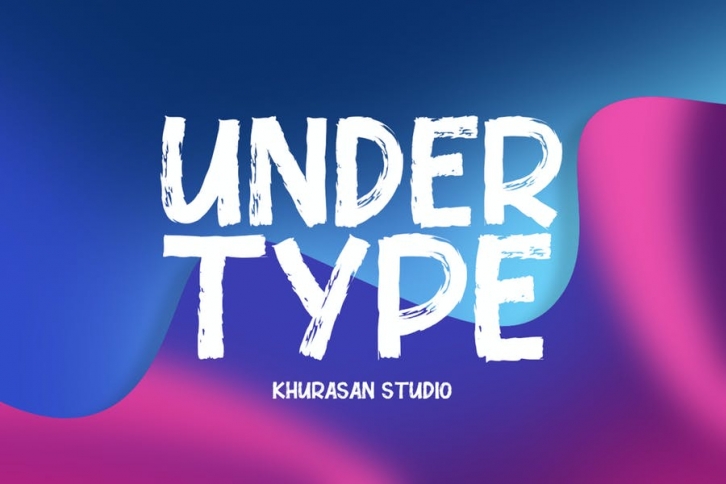
The Under Type font is a sans serif type of bold brush, elegant and vintage feel character set. To create the beautiful combination, just mix the uppercase and lowercase. The Under Type includes a full set of capital and lowercase letters, as well multi-lingual support, numerals, puncutation. The Under Type font it’s perfect for , poster, logo, magazine, cover, banner, tshirt and headers, or even large-scale artwork.
• Uppercase & Lowercase
• Numerals & Punctuations
• Multilingual
• ligature